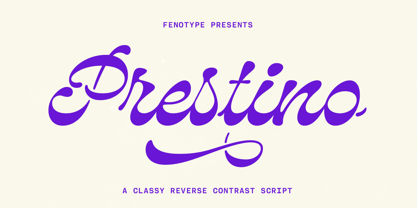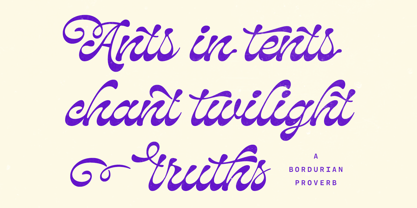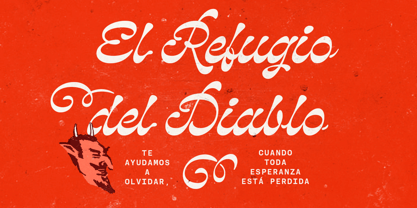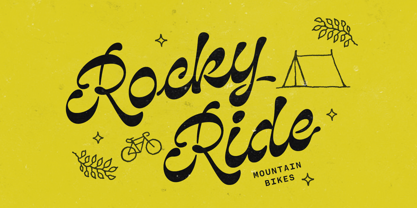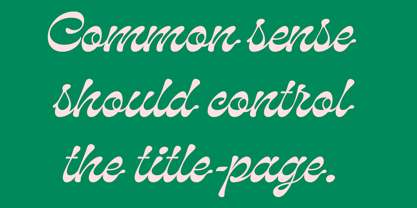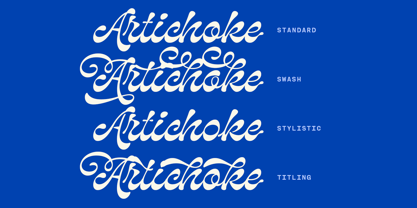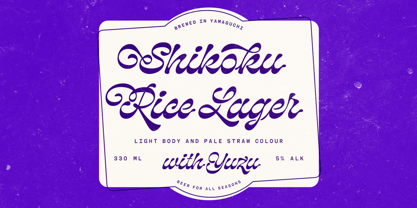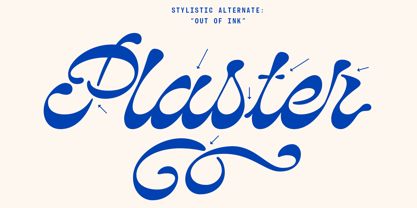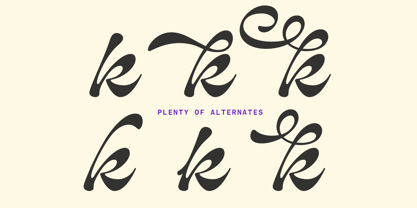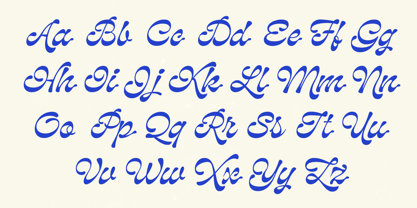
Prestino
by Fenotype
Prestino is an elegant reverse-contrast brush script - a modern style with a touch of nostalgy. Prestino fits well in contemporary designs, products, labels and any display use.
Prestino is equipped with several OpenType features: Contextual Alternates help maintain smooth connections between certain character combinations and are automatically activated. Swash, Stylistic and Titling Alternates, as well as 7 Stylistic Sets offer a wide range of alternate characters. In addition, Prestino has a selection of ornamental swooshes and swirls, set in Swash and Stylistic Alternates, under characters 0-9, !”#€%&)+,-.
Designers: Emil Karl Bertell
Foundry: Fenotype
Prestino